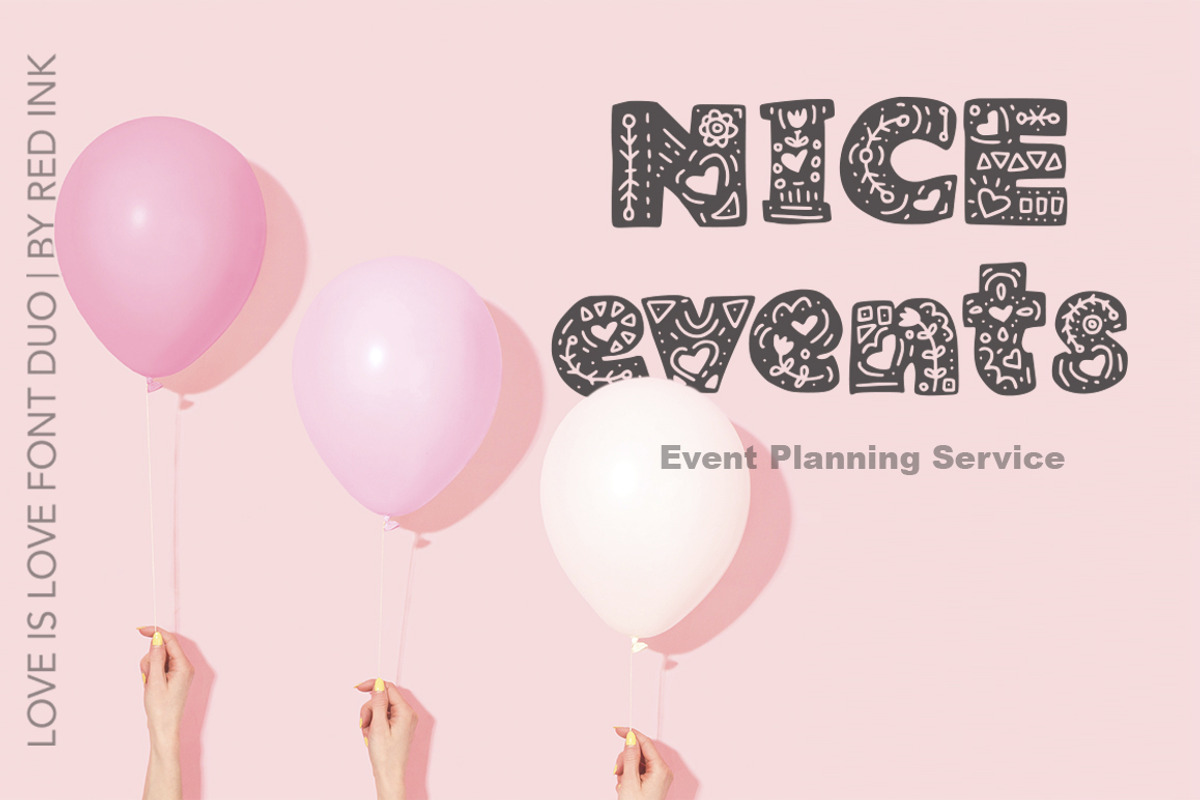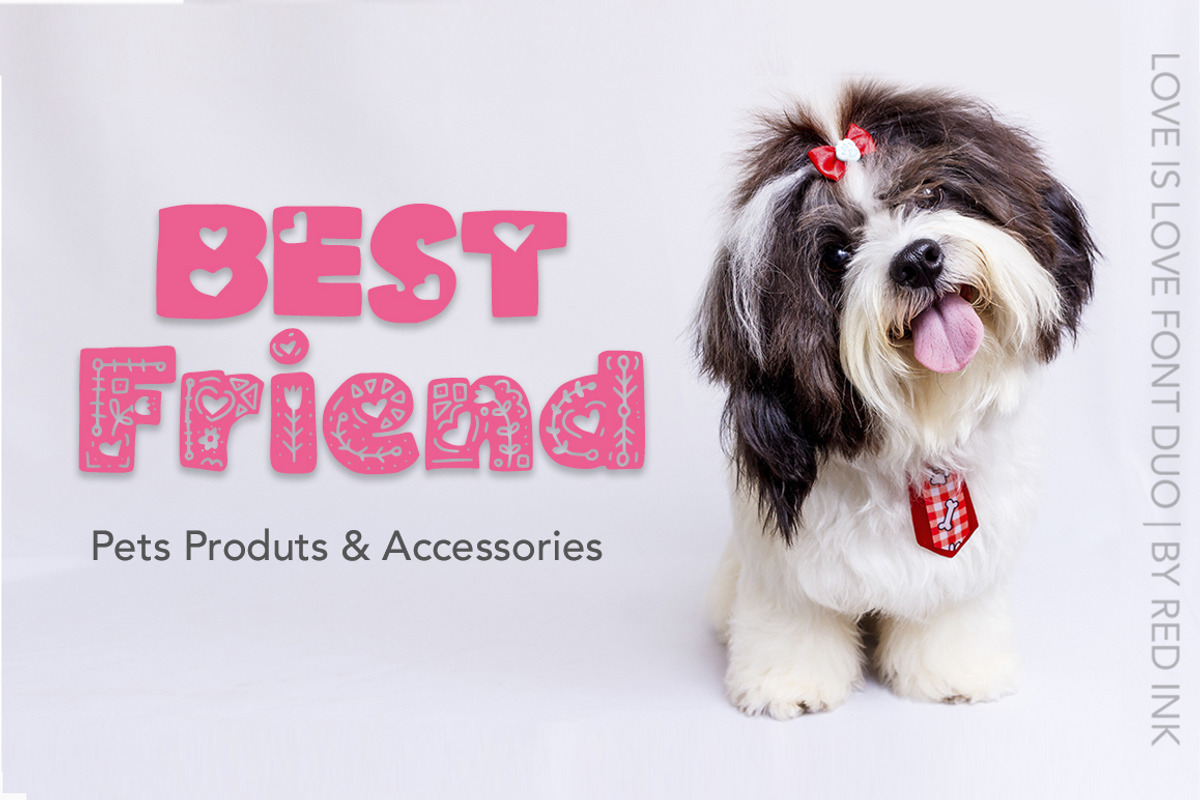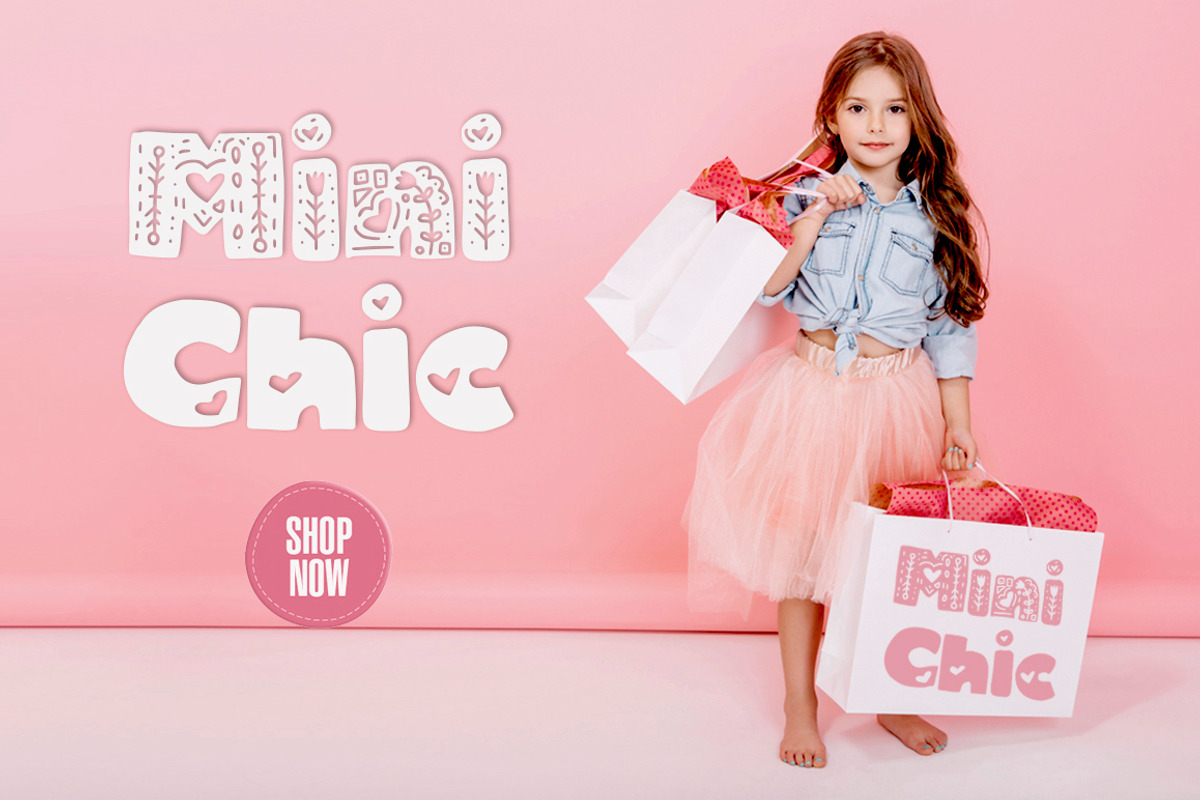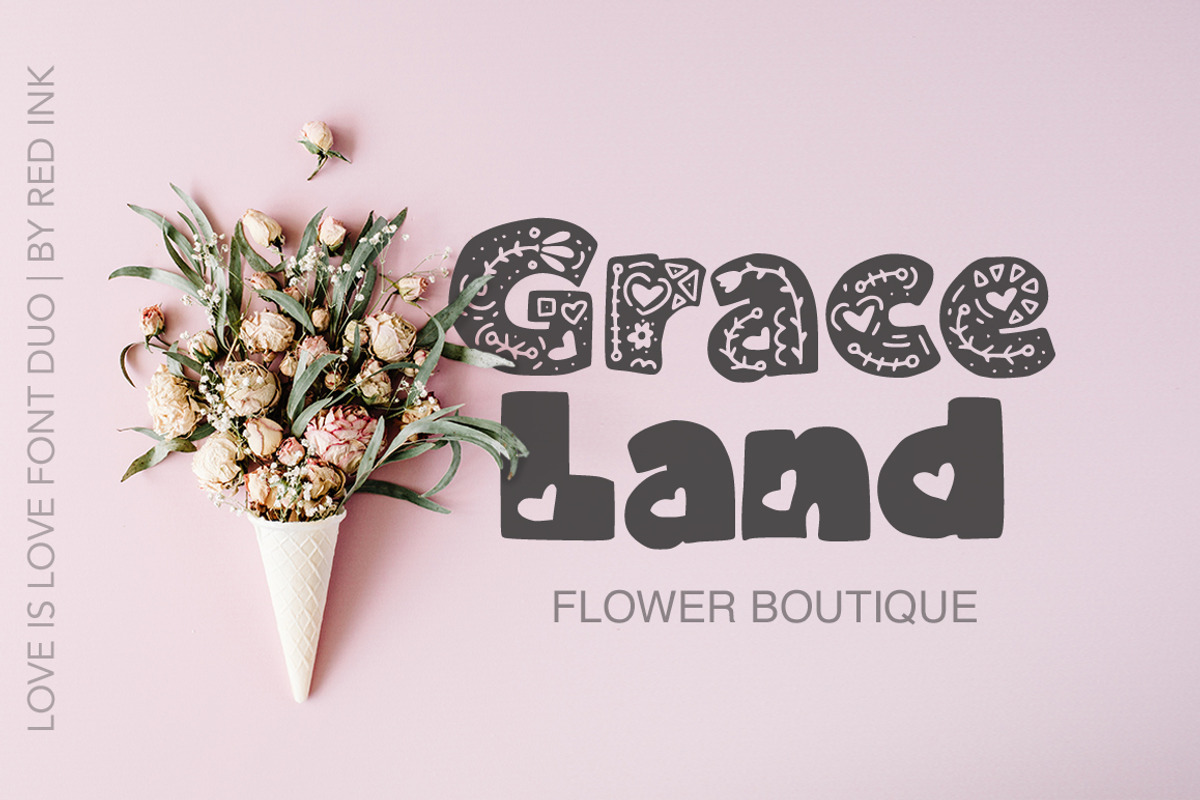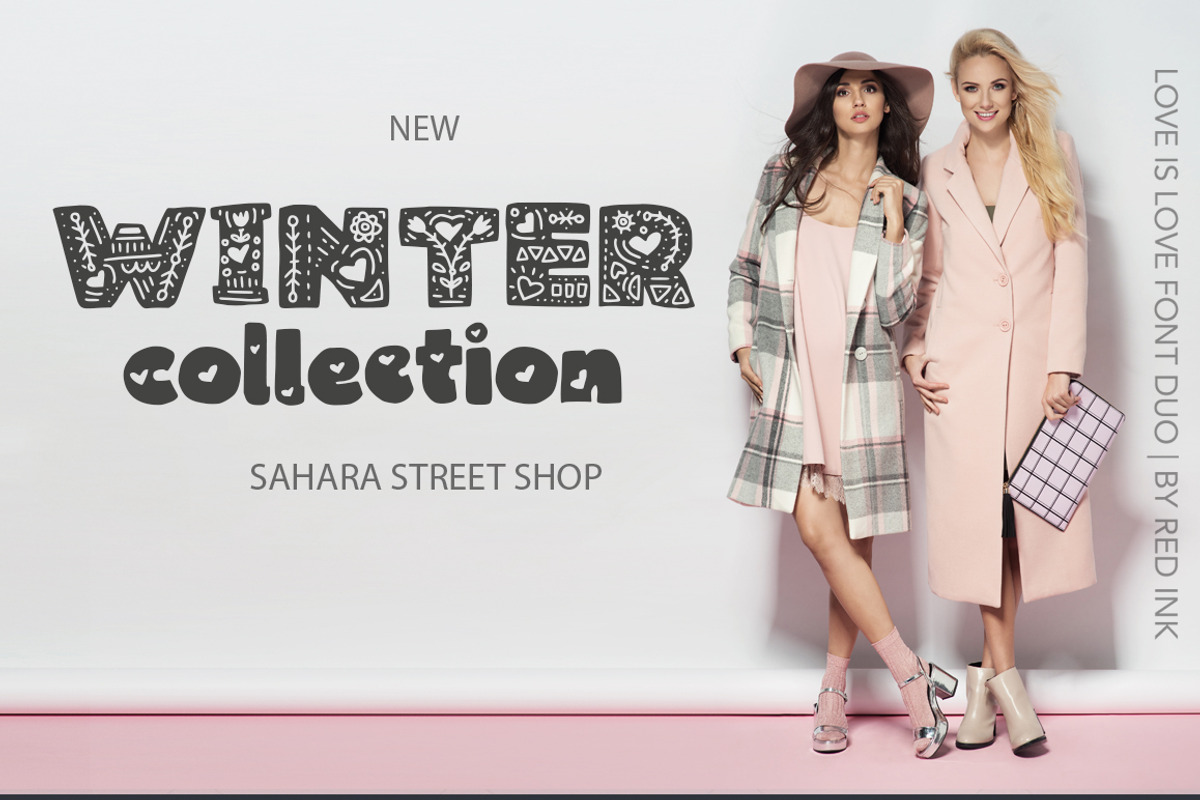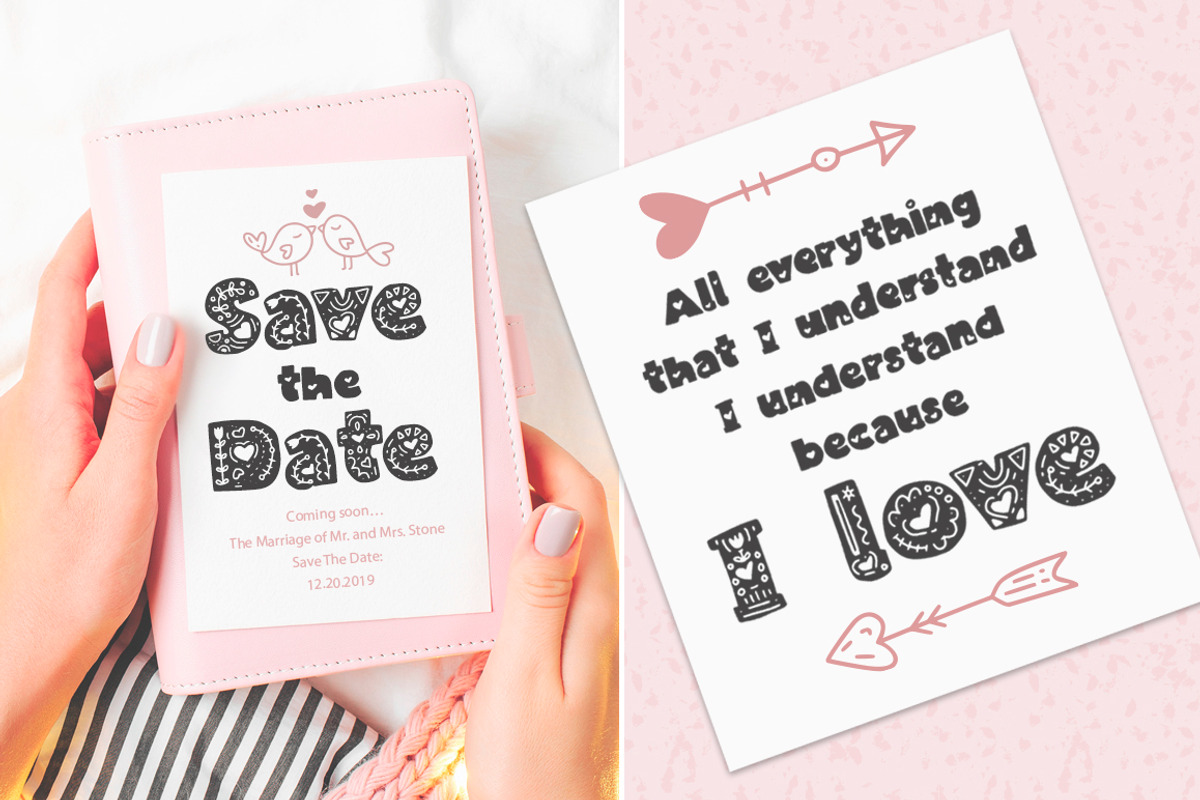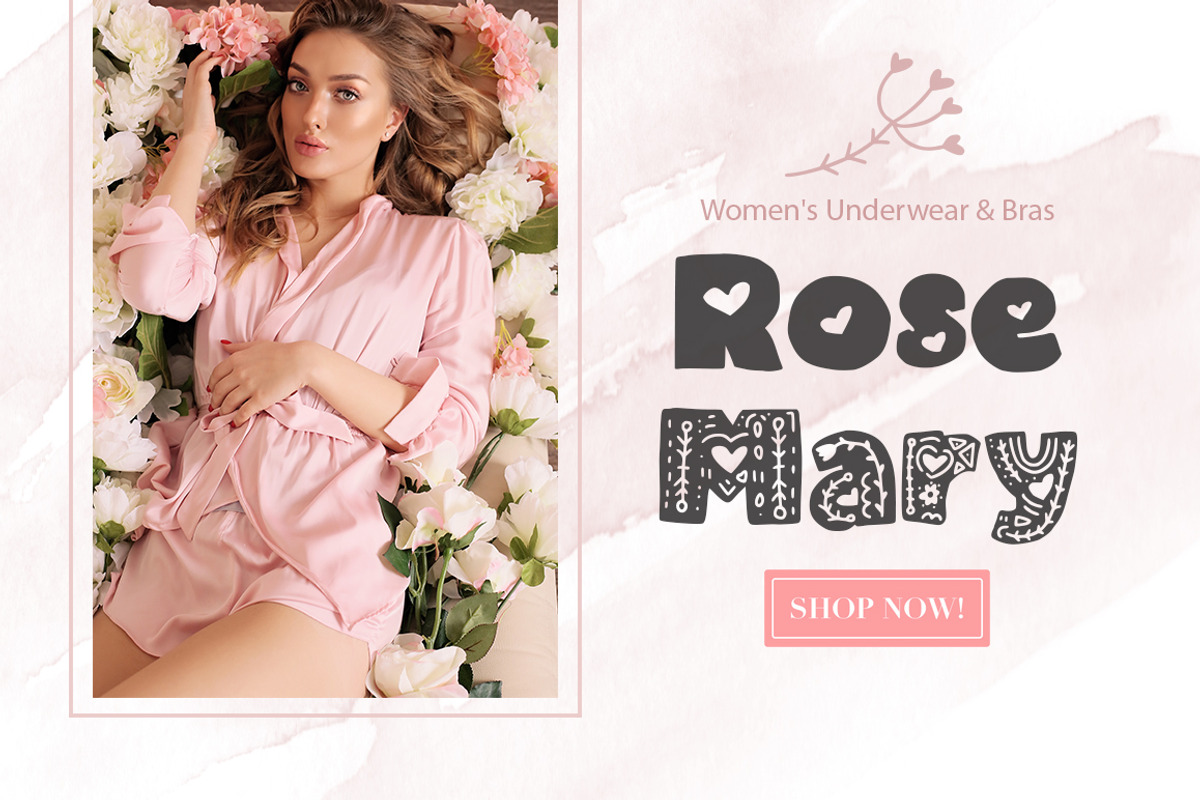
Hi guys! I'm happy to introduce you my new lovely font collection “LOVE IS LOVE”.
💖"LOVE IS LOVE" font family coming with scandinavian 2 fonts & 67 doodle art pieces. 💖
“LOVE IS LOVE” – is a perfect tool to create love messages. Created with love, for messages about love, confessions, postcards and various lovely and cute designs. Mix & match clipart illustrations and fonts to create amazing designs, greeting cards, t-shirts, posters, mugs, branding materials, and any other projects you are working on.
“LOVE IS LOVE” fonts are a beautiful handdrawn, PUA Unicoded fonts with full set of alternative lowercase letters and extensive multilingual support, which include Western European, Central European and South Eastern European languages. Please type characters in text box below to check any characters you need.
Gentle cute doodle cliparts help to supplement the fonts. All together they are an unique and complete tool for creating cute, marvelous designs about love, which will make everyone to smile.